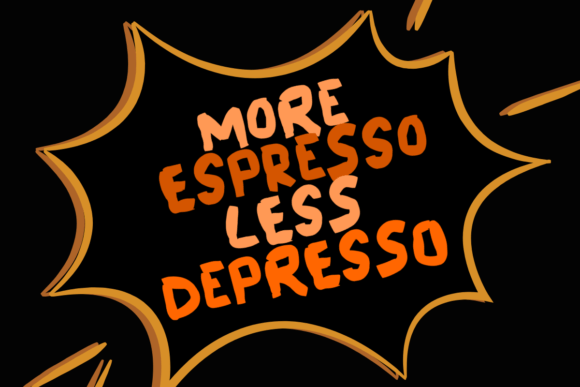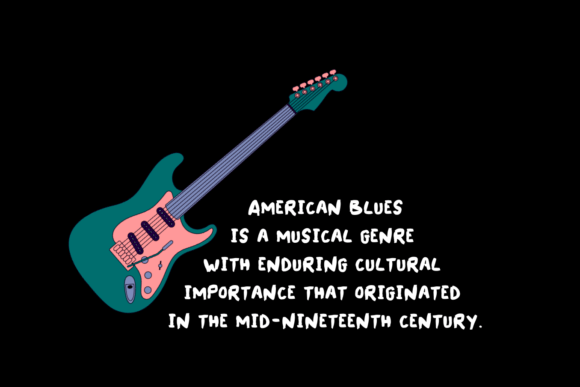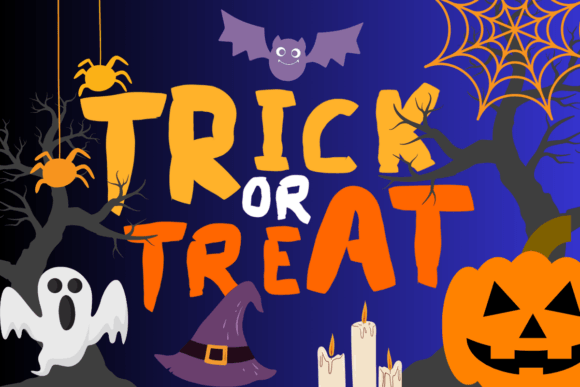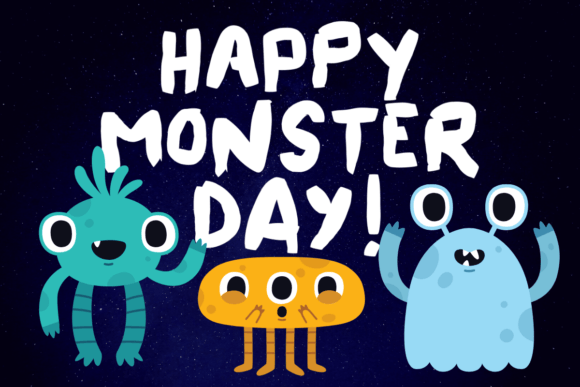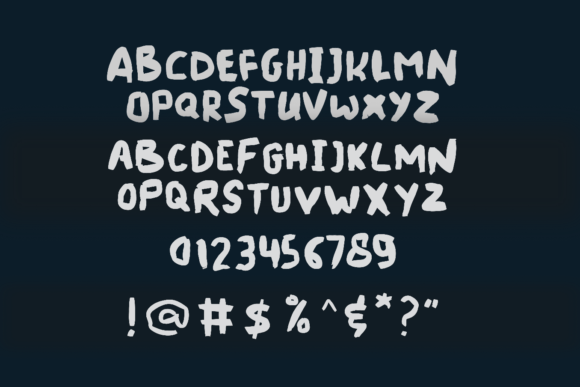
Introducing Another Blues Font: A Cool and Simple Rough Display Font
Are you a designer or crafter looking for a unique and versatile font to elevate your creative projects? Look no further than Another Blues Font, a cool and simple rough display font that’s perfect for making a statement. In this article, we’ll dive into the features and benefits of Another Blues Font, and explore how you can use it to take your designs to the next level.
What is Another Blues Font?
Another Blues Font is a rough display font that’s designed to add a touch of rugged charm to your designs. With its distressed texture and simple, bold lines, this font is perfect for creating eye-catching posters, flyers, and prints. Whether you’re a seasoned designer or a crafty DIY enthusiast, Another Blues Font is a great addition to your font library.
Key Features of Another Blues Font
- Cool and Simple Design: Another Blues Font boasts a clean and minimalist design that’s easy to read and understand.
- Rough Texture: The font’s distressed texture gives it a unique, handmade feel that’s perfect for creating bold and eye-catching designs.
- Display Font: Another Blues Font is specifically designed as a display font, making it perfect for headlines, titles, and other attention-grabbing elements.
- Versatile: This font can be used for a wide range of design projects, from posters and flyers to prints and digital graphics.
Benefits of Using Another Blues Font
So why choose Another Blues Font for your design projects? Here are just a few benefits of using this amazing font:
- Adds a Touch of Personality: Another Blues Font’s unique design and rough texture add a touch of personality to your designs, setting them apart from more generic fonts.
- Easy to Read: Despite its distressed texture, Another Blues Font is surprisingly easy to read, making it perfect for creating designs that need to communicate a message.
- Time-Saving: With Another Blues Font, you can create professional-looking designs in no time. Its simple design and bold lines make it easy to use and customize.
How to Use Another Blues Font
Another Blues Font is incredibly versatile, and can be used for a wide range of design projects. Here are a few ideas to get you started:
- Posters and Flyers: Use Another Blues Font to create eye-catching posters and flyers that grab attention and communicate a message.
- Prints and Graphics: Add a touch of personality to your prints and graphics with Another Blues Font’s unique design and rough texture.
- Digital Graphics: Use Another Blues Font to create bold and eye-catching digital graphics, from social media posts to website headers.
Tips and Tricks for Getting the Most Out of Another Blues Font
Here are a few tips and tricks for getting the most out of Another Blues Font:
- Experiment with Different Sizes: Another Blues Font looks great in a range of sizes, from small and subtle to large and bold.
- Play with Color: Try pairing Another Blues Font with different colors and textures to create unique and eye-catching designs.
- Combine with Other Fonts: Another Blues Font pairs well with a range of other fonts, so don’t be afraid to experiment and find your favorite combinations.
| Font Name | Another Blues Font |
| Author | Deedeetype |
Another Blues Font is a cool and simple rough display font that’s perfect for designers and crafters looking to add a touch of personality to their designs. With its unique design, versatile features, and ease of use, this font is a great addition to any font library. Whether you’re creating posters, flyers, prints, or digital graphics, Another Blues Font is sure to elevate your designs and help you stand out from the crowd.